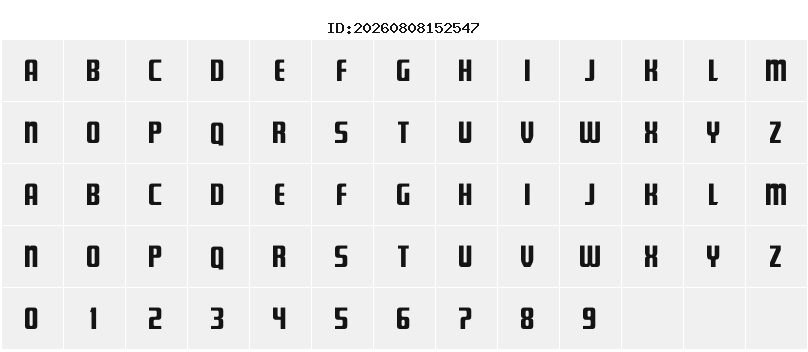
Pocket Starfleet Preview
• Font Name: Pocket Starfleet
• Font ID: Pocket Starfleet Normal
• Full Font Name: Pocket Starfleet Normal
• PostScript Name: PocketStarfleetNormal
About Pocket Starfleet.ttf
Pocket Starfleet.ttf is a modern, elegant sans-serif font designed for ultimate readability and visual harmony. Perfect for branding, headlines, web design, and print materials.